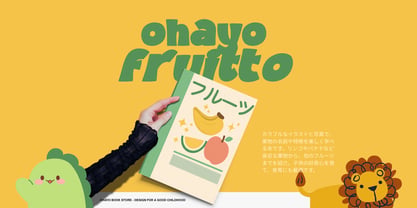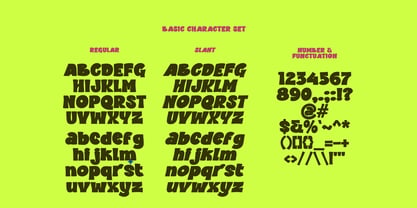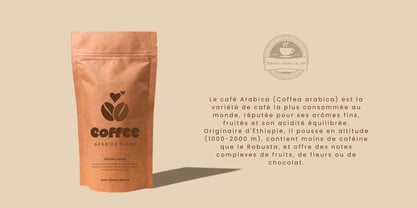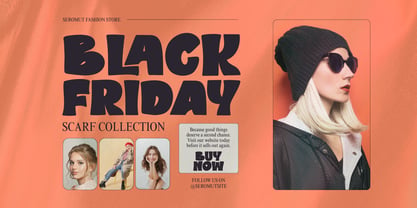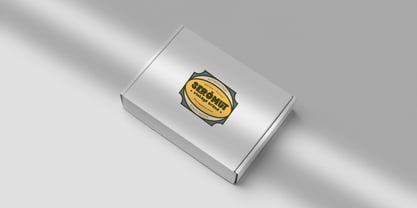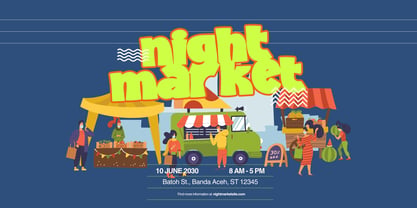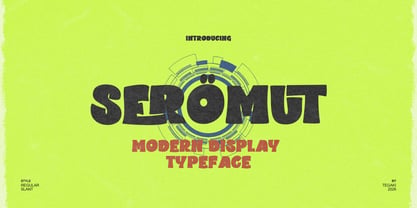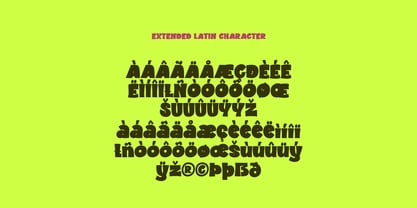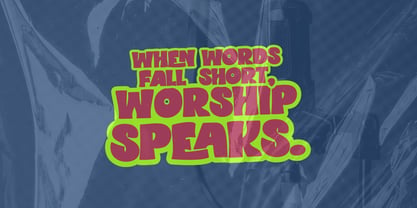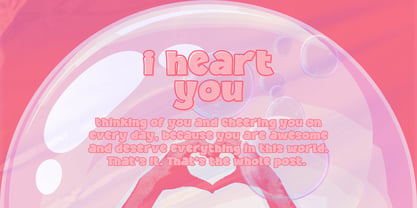
Seromut Display
by Tegaki
The Seromut Display Font Family was designed by Rudi Suhairi and published by Tegaki. Seromut Display contains 2 styles and family package options. More about this family
Seromut – Modern Handwritten Typeface Seromut is a bold modern display typeface with a chunky, playful character and strong visual impact. Its rounded, expressive letterforms bring a retro touch while staying fresh and contemporary. Perfect for headlines, posters, branding, packaging, and eye-catching graphics. Comes in 2 styles: Regular and Slant, giving you both solid strength and dynamic movement in one versatile family.
Designers: Rudi Suhairi
Foundry: Tegaki